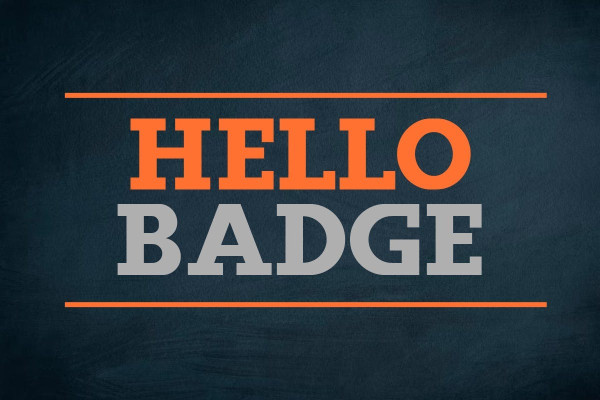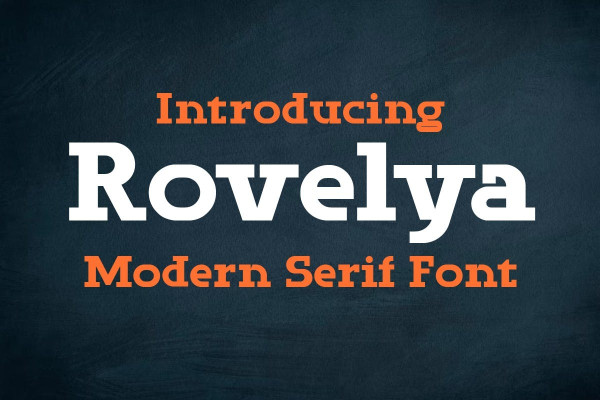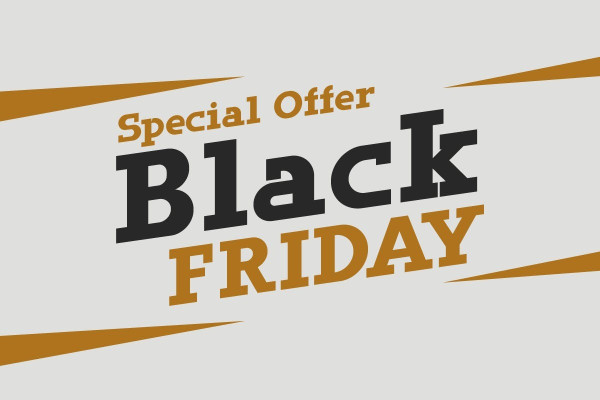
Rovelya Font
Rovelya Font – Modern Serif is perfect for most all aspects of graphic design, from creating a unique display layout, a quirky logo design and even long-form content. Download now and go get adventurous!
Classification: Serif Fonts, Slab Serif Fonts